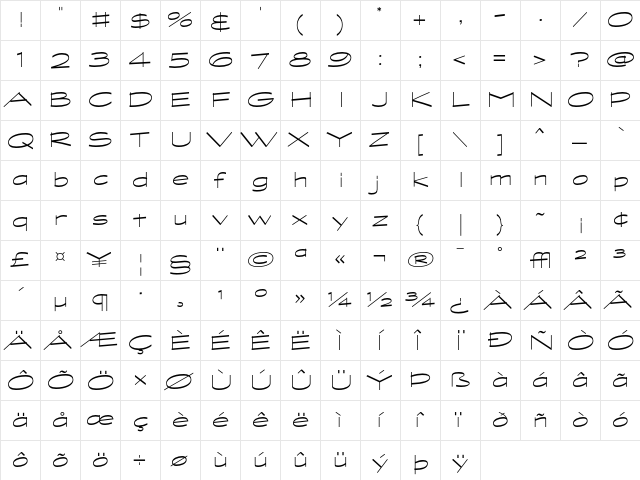
Graphite LightWide
Design Context for Graphite Typeface
Graphite is a composed and adaptable typeface that performs quietly and consistently across a wide range of design contexts. The delicate stroke weight brings airiness and refinement to layouts.